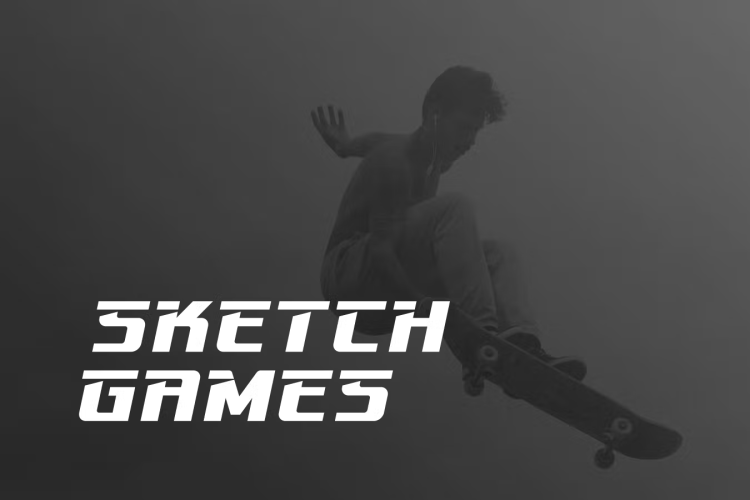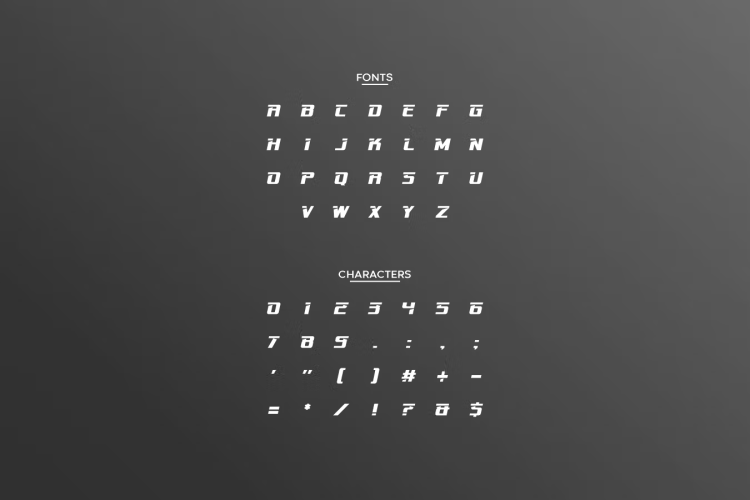
Gobrac Font
Gobrac an awesome sports font with wide italic fonts, modern cutouts and dynamic tilt. Ideal for fast car racing sports titles, running matches, cycling, automotive game…
Gobrac an awesome sports font with wide italic fonts, modern cutouts and dynamic tilt. Ideal for fast car racing sports titles, running matches, cycling, automotive game logos and other modern dynamic monograms or texts. Gobrac is better than some other sports fonts because it has a unique cutout, this creates a power and speed effect. Designed as a fast and dynamic font, but with a slightly different font design, take a look and grab it right away.
Where Gobrac Font works best
Seasonal campaigns
Gobrac Font gives a holiday or themed promotion its own look without redrawing anything; use it for the headline only.
Party and family invitations
Decorative letters set the mood before the text is read. Pair Gobrac Font with a plain sans for the practical details.
Game and video titles
Themed lettering sells the world of a game or a channel in one frame.
What kind of work does Gobrac Font suit?
It sits in the Decorative Fonts group and reads as branding, decorative, decorative fonts, modern. That makes it a candidate wherever those qualities help: headings, packaging, social graphics and brand work. Set it at the size you plan to use before deciding.